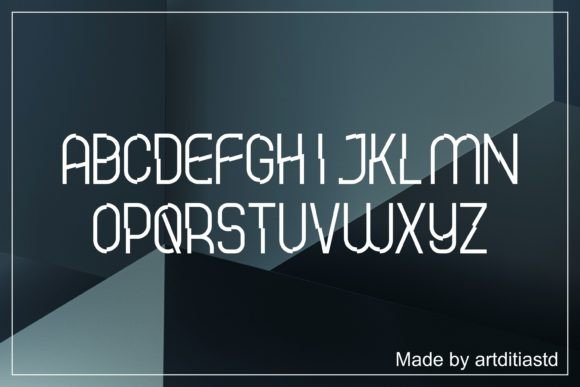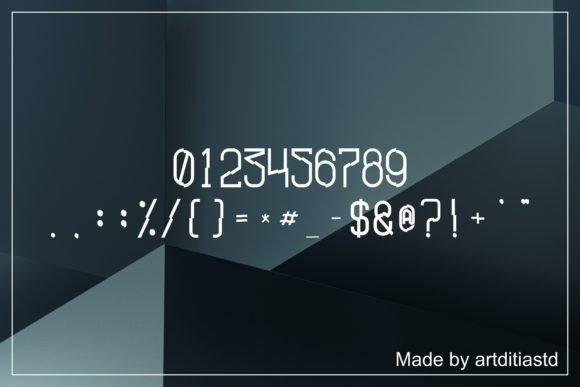
Introduction to Crooked Font
Have you ever found yourself scrolling through a design inspiration board, and suddenly, a font catches your eye? It’s the perfect blend of quirky and friendly, making you think, “Ah, this is exactly what my next creative project needs!” That’s exactly what happened to me when I stumbled upon the Crooked Font. Its unique all-caps display style is not only visually appealing but also exudes a sense of approachability that’s hard to resist.
As designers, we’re always on the lookout for high-quality fonts that can elevate our creative work. And let me tell you, the Crooked Font is a game-changer. With its transparent background and modern aesthetic, it’s the perfect design resource for any project – from digital designs to handmade crafts. The best part? You can download it for free, making it an accessible and valuable addition to your design arsenal.
Whether you’re working on a presentation, a greeting card, or a DIY project, the Crooked Font is sure to bring a touch of personality to your work. Its impeccable friendliness makes it a standout choice for designers who want to convey a sense of approachability and fun in their designs.
Key Features of Crooked Font
- Unique, hand-drawn design with a touch of imperfection, making it perfect for creative projects.
- Comes in a single weight, ideal for use in titles, headings, and other prominent design elements.
- Includes 100 characters, including uppercase and lowercase letters, numbers, and punctuation marks.
Honest Review: Crooked Font
As a designer, I’ve worked with numerous fonts in my creative projects. Recently, I had the chance to test out the Crooked Font, and I’m excited to share my honest review with you.
- ✨ The high quality of the font is impressive. The detailed design and smooth curves make it perfect for any creative project.
- ⚠️ The font may not be suitable for small text sizes, as the design can become distorted.
- ⚠️ Some users may find the font too playful or unconventional for certain design styles.
Overall, I’m impressed with the Crooked Font. It’s a unique and creative design resource that can add a fresh touch to any project. While it may have some limitations, it’s definitely worth checking out, especially for free.
Crooked Font is a unique, high-quality design resource ideal for creative projects. This font features a transparent background, making it versatile and easy to use in various design applications.
Tips for Getting the Most Out of Crooked Font
Experiment with different font sizes, colors, and styles to create unique and eye-catching designs.
Combine Crooked Font with other design elements, such as images and graphics, to add depth and interest to your designs.
Common Use Cases for Crooked Font
Crooked Font is ideal for creative projects, such as:
Graphic design
Typography
Branding and logo design